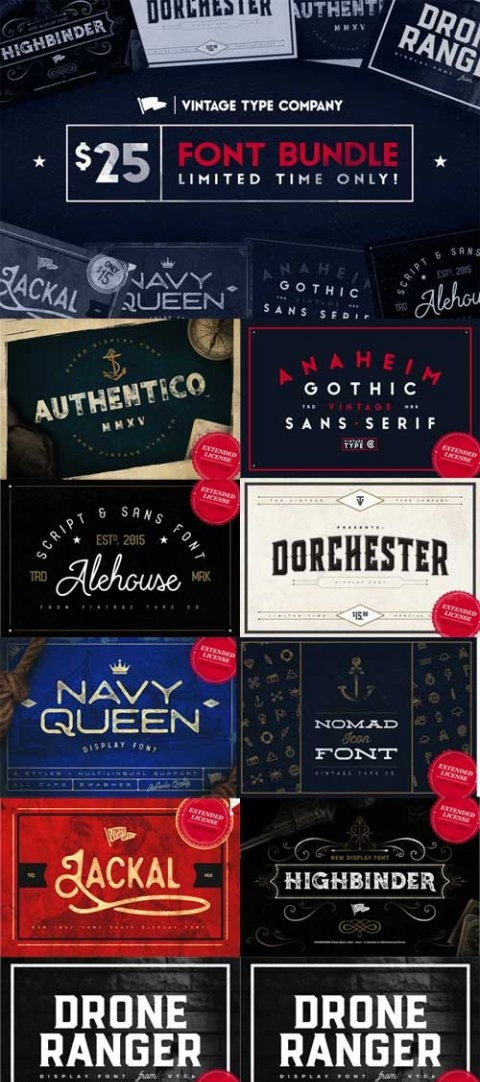
Vintage Font Bundle 2
Introducing the Vintage Font Bundle 2, a carefully curated collection of unique typefaces that embody the charm and character of vintage design. This bundle features a variety of font styles, including serif, sans-serif, and script, each with its own distinct personality.
• Multiple font styles: serif, sans-serif, and script
• Various weights for each font
• Ideal for both print and digital projects
Each font in this bundle is designed to add a nostalgic touch to your projects. The included weights range from light to bold, allowing for flexibility in design. The fonts are available in OTF and TTF formats, ensuring compatibility across different platforms.
Use these vintage fonts for branding, logos, invitations, posters, and any creative project that requires a touch of elegance and nostalgia. They work beautifully in both web and print applications.